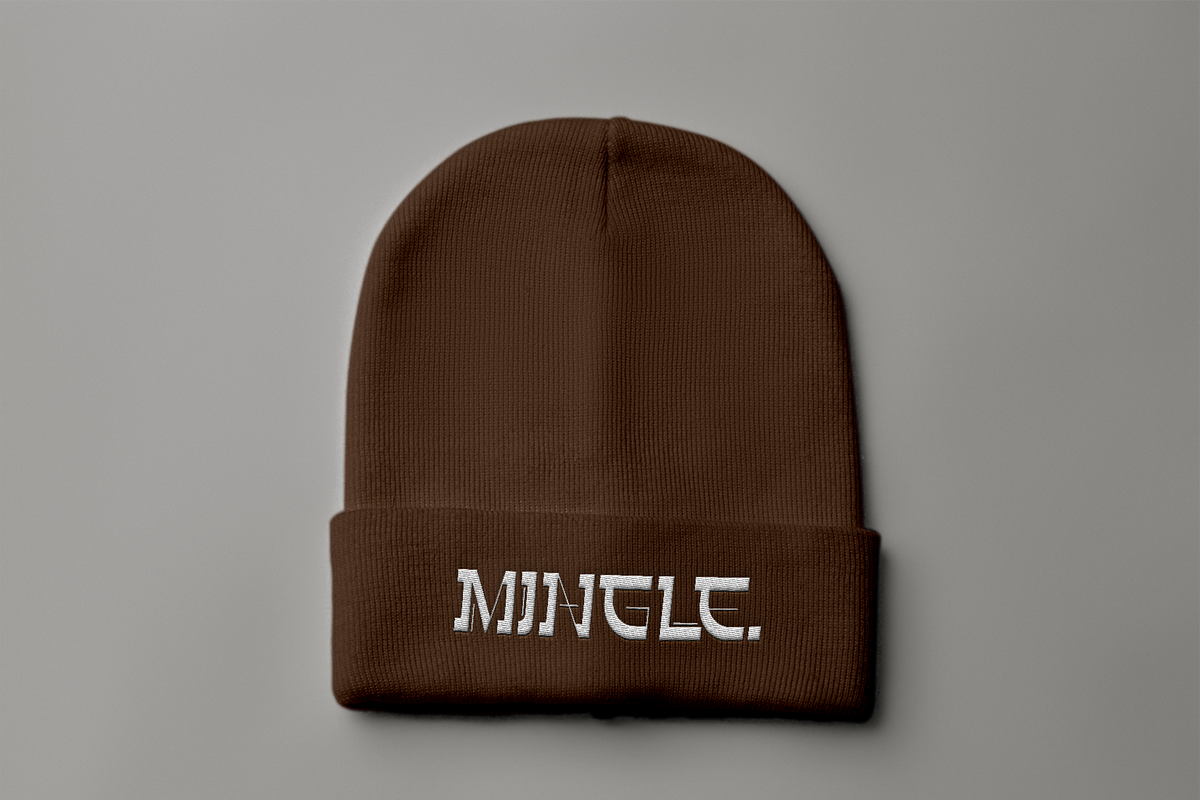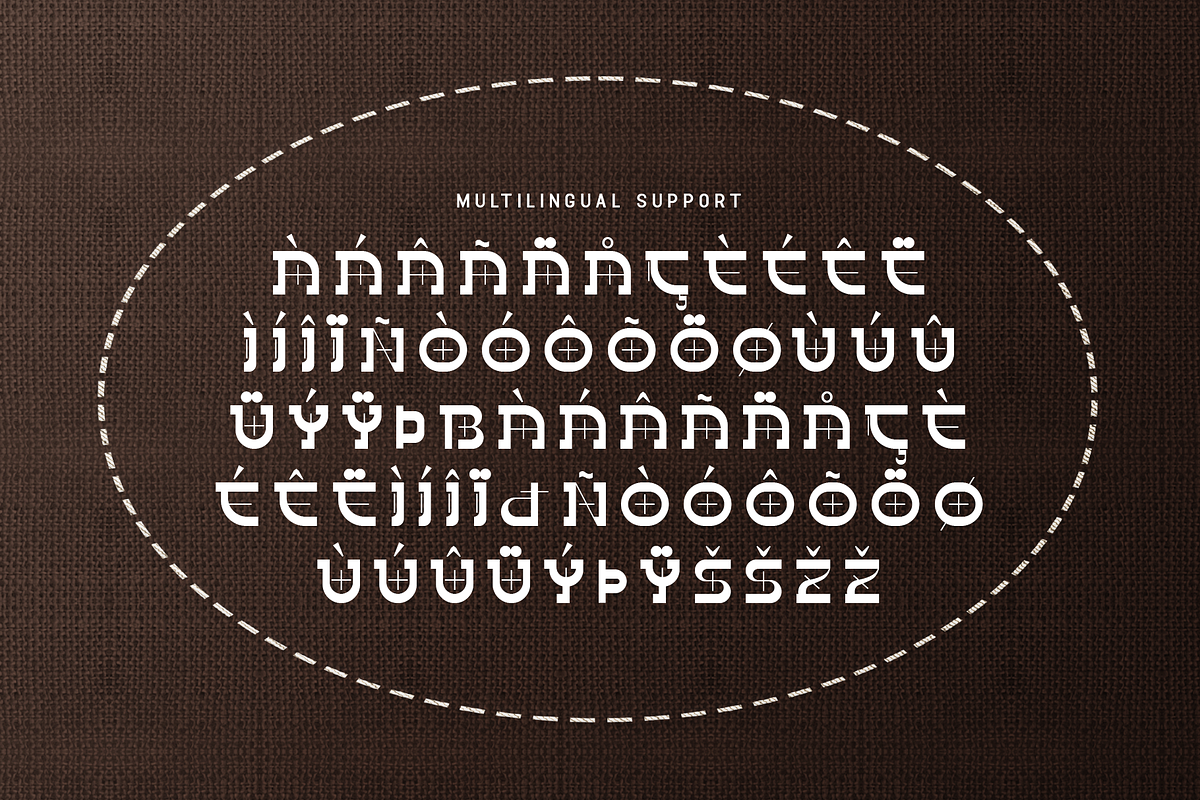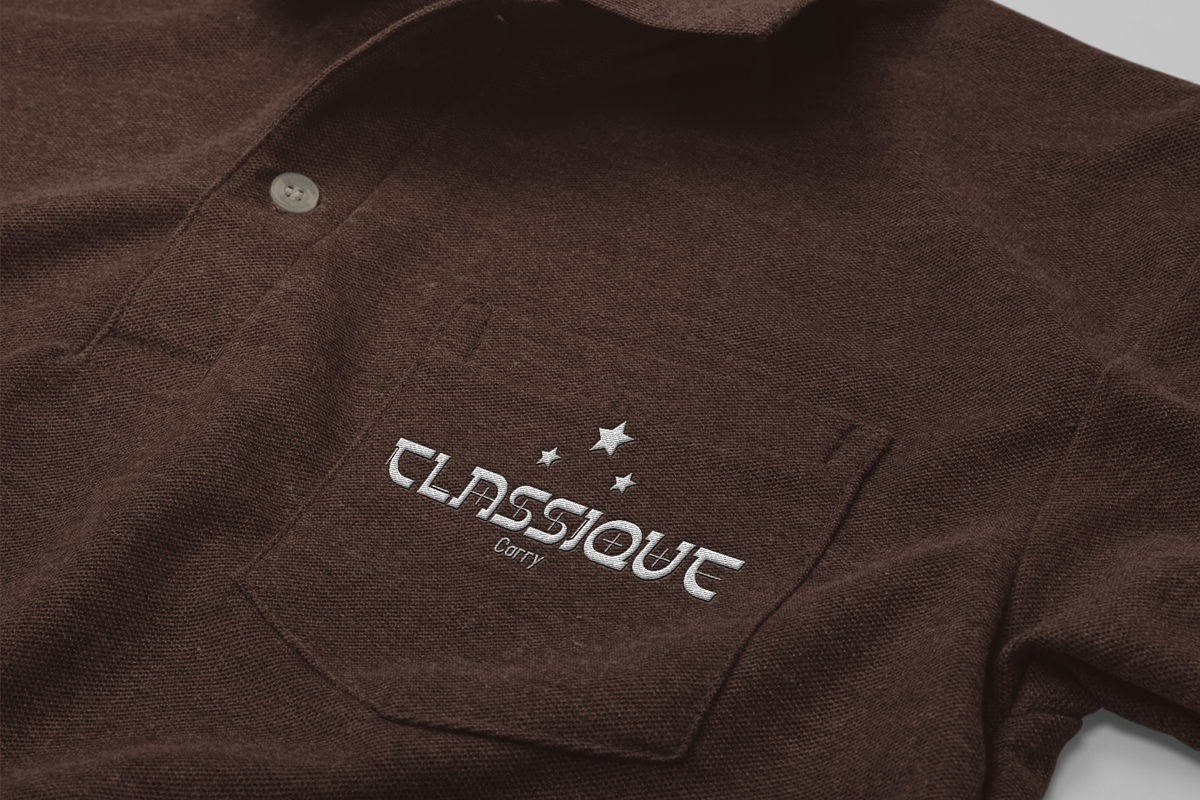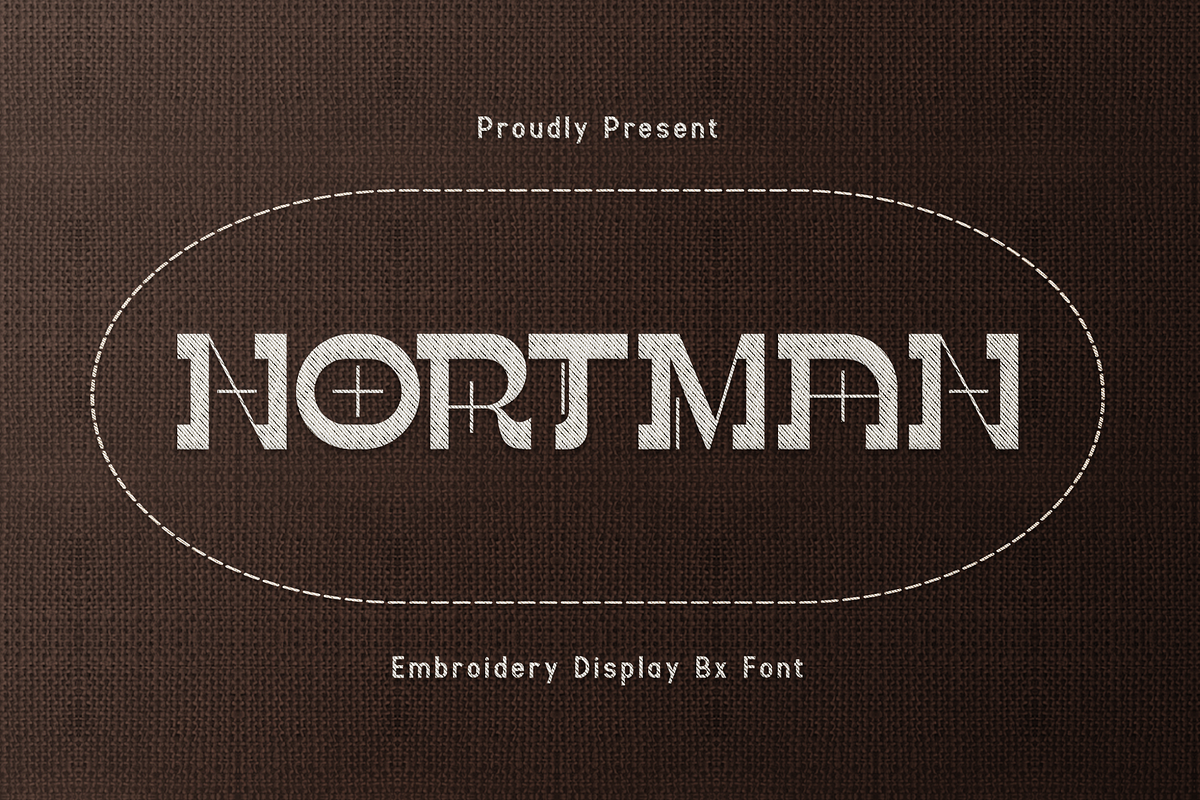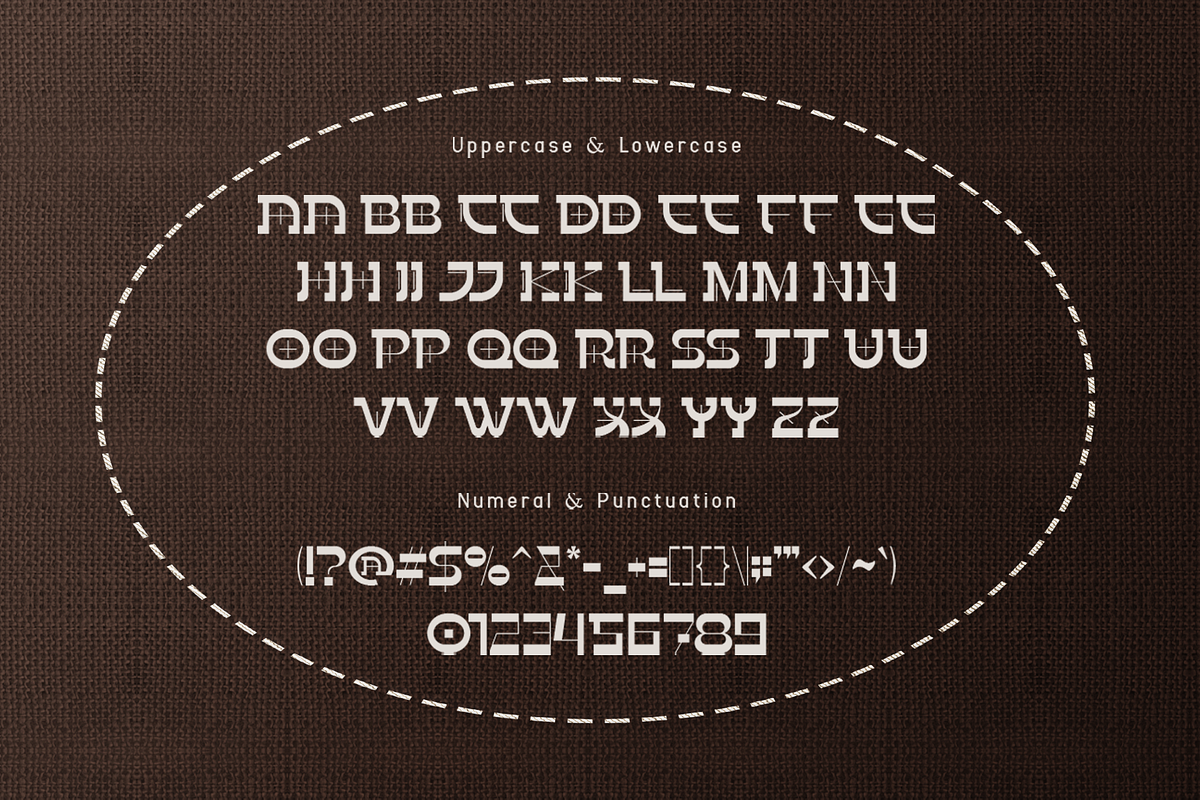
Nortman - Embroidery Display BX Font
Introducing "Nortman," an embroidery display BX font that combines the boldness of display typography with the intricate craftsmanship of embroidery. Perfect for designers and crafters who want to make a strong visual statement, Nortman offers a unique blend of traditional stitching and contemporary design.
Expertly crafted, Nortman is ideal for a variety of applications including apparel design, branding, posters, and home decor. Each character is meticulously designed to replicate the depth and texture of hand-embroidered letters, adding a distinct and bold aesthetic to your projects.
The "Nortman" font includes a complete set of uppercase and lowercase letters, numbers, and punctuation marks, providing the versatility and flexibility you need for all your design needs. Whether you're creating standout logos or adding decorative flair to your home accessories, Nortman enhances your designs with its bold and intricate embroidery-inspired typography.
Make a bold statement with Nortman, an embroidery display BX font that blends the richness of traditional craftsmanship with modern design.